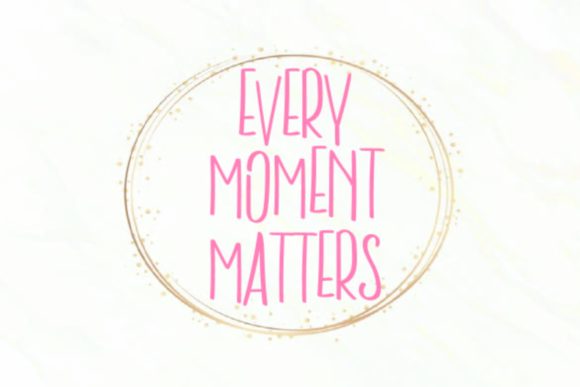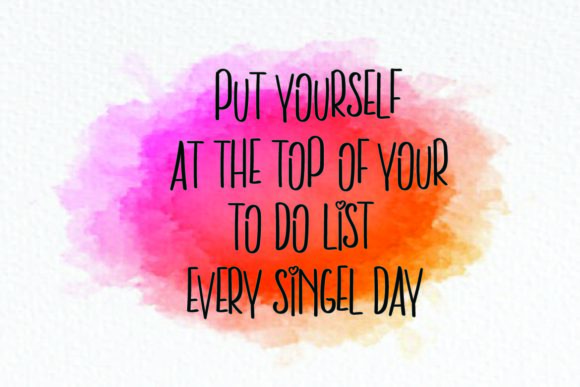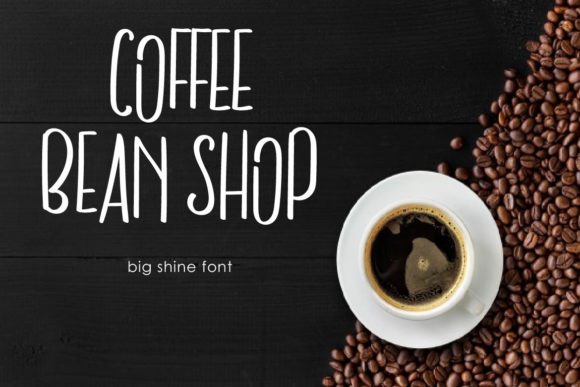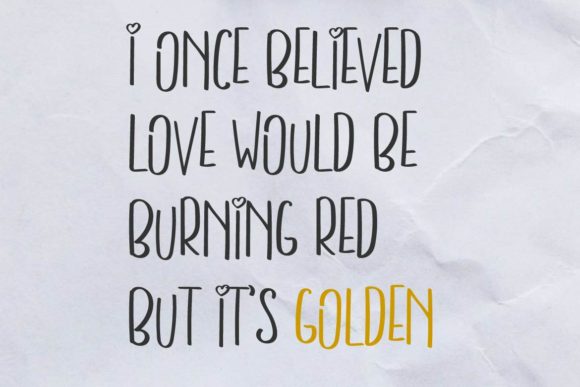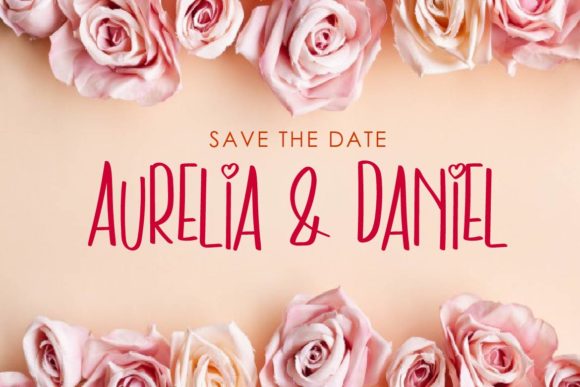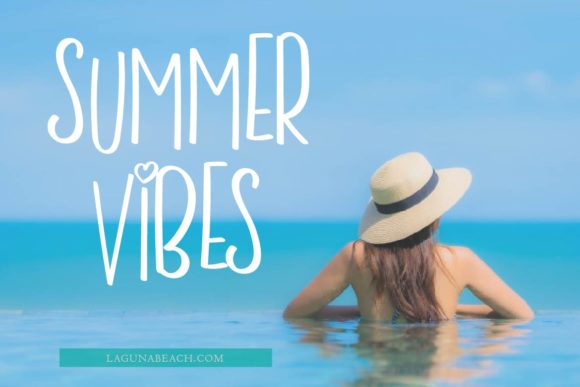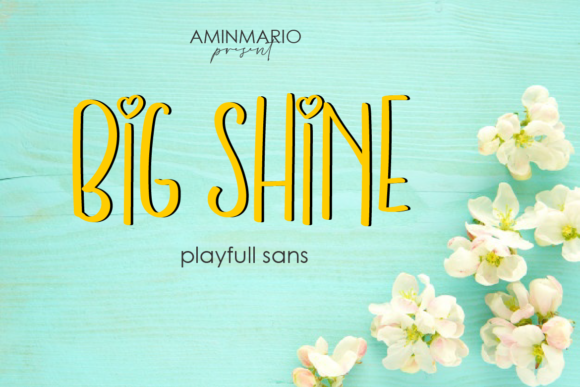
Introducing Big Shine Font: Elevate Your Designs with a Minimal and Neat Sans Serif
In the world of typography, fonts play a crucial role in making or breaking a design. A well-chosen font can elevate your creative project from ordinary to extraordinary. If you’re on the hunt for a font that embodies simplicity, elegance, and versatility, look no further than the Big Shine Font. This minimal and neat sans serif font is designed to seamlessly integrate into a wide array of projects, adding that special touch that makes your designs stand out.
What is Big Shine Font?
Big Shine is a thoughtfully crafted sans serif font that brings a fresh perspective to the world of typography. Its clean lines and minimalistic design make it an ideal choice for designers and crafters looking for a font that won’t overpower their work but instead complement it. Whether you’re working on a branding project, a website, a print design, or any other creative endeavor, Big Shine Font offers the perfect blend of simplicity and sophistication.
Key Features of Big Shine Font
- Minimal and Neat Design: The hallmark of Big Shine Font is its clean and uncluttered design. This makes it incredibly versatile and easy to read, ensuring your message is conveyed clearly and effectively.
- Sans Serif Elegance: The sans serif nature of Big Shine gives it a modern and streamlined look, suitable for designs that require a touch of elegance and professionalism.
- Versatility: One of the standout features of Big Shine Font is its incredible versatility. It can be used in a vast range of projects, from digital platforms like websites and social media graphics to print materials such as brochures, posters, and business cards.
- Easy Integration: Big Shine Font is designed to be user-friendly. It can easily be integrated into your design projects, allowing you to experiment with different styles and applications.
Who Can Benefit from Big Shine Font?
Big Shine Font is a valuable resource for a wide range of professionals and enthusiasts. Graphic designers can use it to add a modern touch to their projects. Crafters and DIY enthusiasts can incorporate it into their handmade goods, such as signs, cards, and decorations, to give them a professional edge. Marketers and businesses can utilize Big Shine Font in their branding materials to convey a sense of simplicity, elegance, and approachability.
How to Use Big Shine Font Effectively
To make the most out of Big Shine Font, consider the following tips:
- Pair it with Other Fonts: While Big Shine Font is stunning on its own, it can also be paired with other fonts to create interesting contrasts. Experiment with serif fonts for a classic look or with script fonts for a more dynamic effect.
- Play with Sizes: Don’t be afraid to vary the font size to create visual hierarchy in your designs. This can help draw attention to key messages and enhance readability.
- Experiment with Colors: Big Shine Font works well with a variety of colors. Try it with bold and bright colors for a vibrant look or with muted tones for a more subdued effect.
Big Shine Font is more than just a typeface; it’s a design companion that can help elevate your creative projects to new heights. Its minimal and neat sans serif design makes it a versatile tool that can be adapted to a myriad of applications. Whether you’re a seasoned designer or a crafting enthusiast, Big Shine Font offers the perfect combination of simplicity, elegance, and versatility. So why wait? Add Big Shine Font to your collection today and discover how it can make your designs shine.